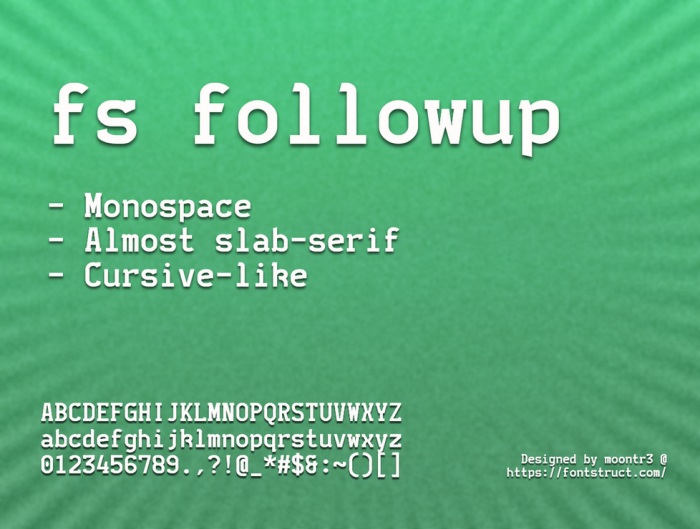
• Another monospace semi-slab-serif cursive-like font inspired by Rogue and a little bit by Anonoma Mono Less Characters.
To me this font seems a little too bold for coding, but it's very reasonable in my opinion (I like looking at my fs RID in my IDE more though).
This font is still WIP so it can update at any time. Expect Cyrillic and latin accents soon.
I like this one a lot
Nice!
that lowercase k CHEF'S KISS
@Ptles thanks! it was actually easier to make this k than the normal one since I didn't want to mess with diagonals.
mono plus serif is hard to do.  Congratulations.
I like this. Some letterforms, especially lowercase r, x remind me of will.i.ॐ’s style—it’s of course a compliment.
I got a little mixed up with the %. Could you make it slightly more diagonal? Thank you!
Otherwise, 10/10.